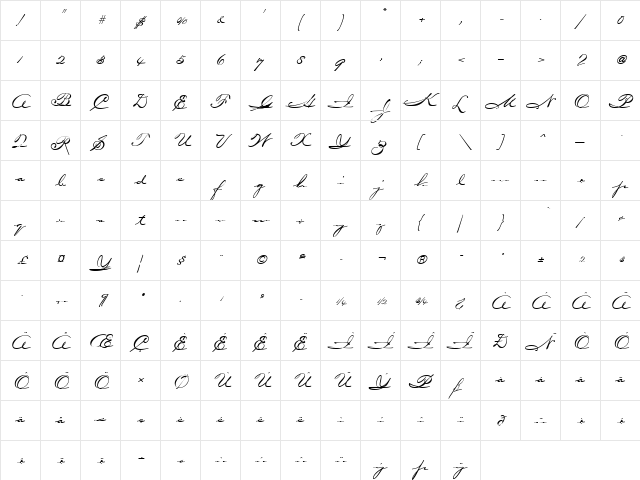
CarpenterICG Medium
Design Context for CarpenterICG Typeface
CarpenterICG takes a measured approach to typography — its balanced proportions and neutral character make it a reliable workhorse for both digital and print work.